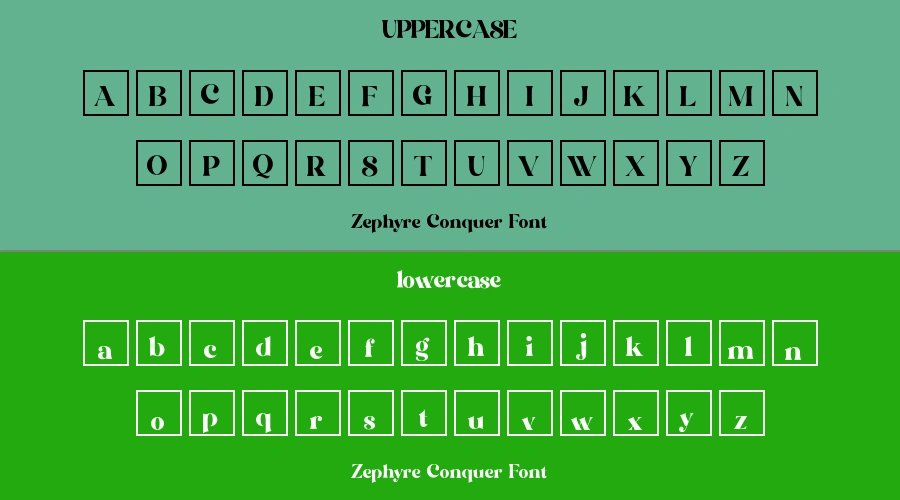
About Zephyre Conquer Font
Zephyre Conquer Font stands out for its distinctive combination of contextual swashes and system consistency. Ideal for advertising headers, it provides the distinctiveness and brand power that professional projects demand. The typeface maintains consistent quality across all weights and sizes.
Key features include refined graceful curves and practical connecting forms, enhancing typographic expression. In certification marks applications, Zephyre Conquer Font demonstrates exceptional footnote clarity. The descender depth and standards alignment contribute to its distinctive character and professional appeal.